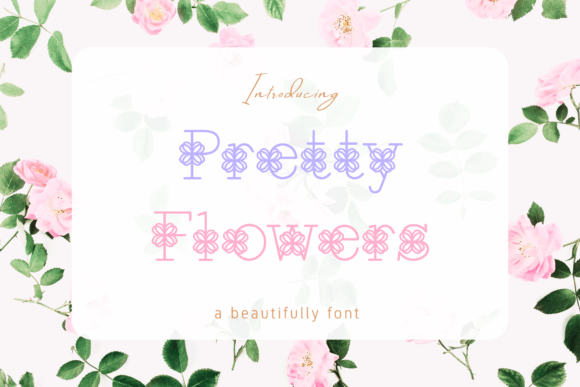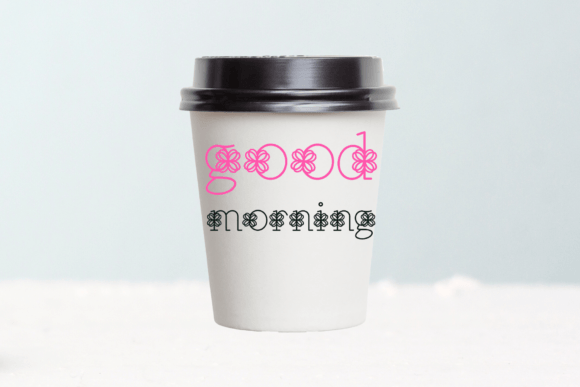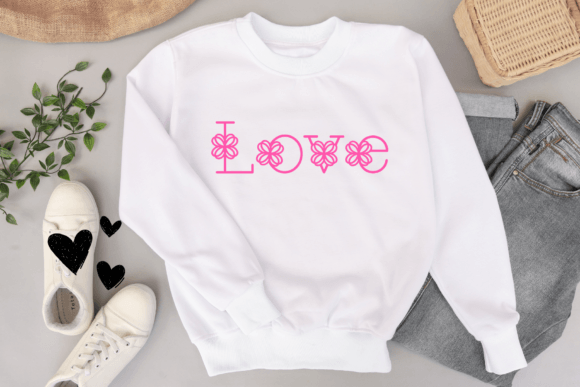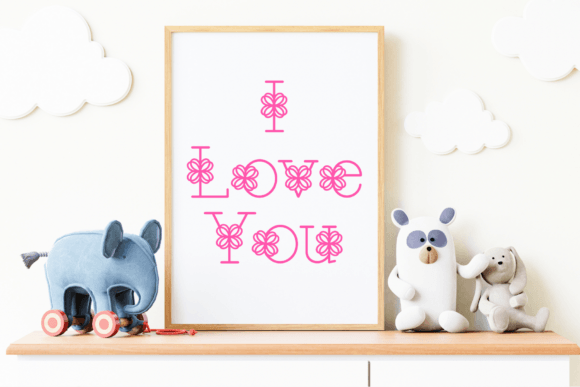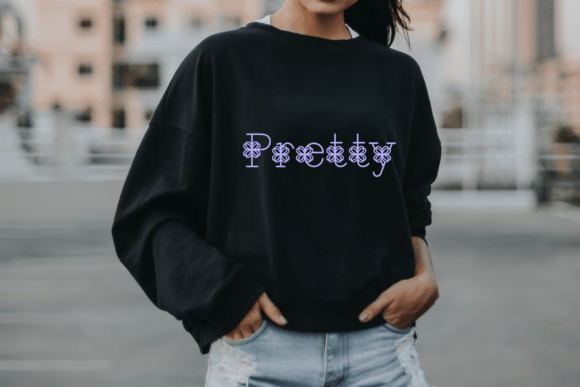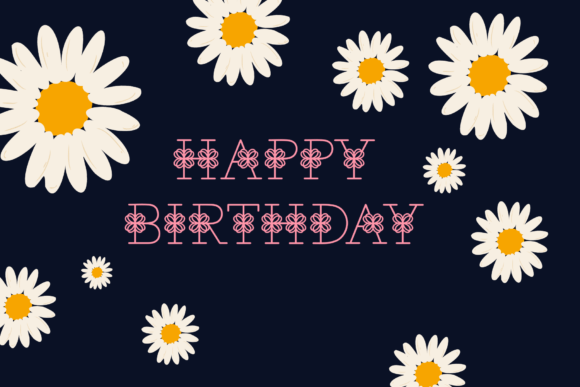
Introduction to Pretty Flowers Font
As I sat at my desk, surrounded by scattered papers and paint-splattered canvases, I stumbled upon the perfect addition to my latest creative project: the Pretty Flowers Font. With its delicate petals and whimsical charm, this font instantly brought my design to life, transporting me to a sunny meadow on a warm spring day.
For designers, finding the right font can be a game-changer. It’s not just about aesthetics; a high-quality font can elevate an entire design, making it stand out from the crowd. And that’s exactly what the Pretty Flowers Font does – it adds a touch of elegance and sophistication to any creative project, whether you’re working on a children’s game, a spring-themed craft, or a romantic wedding invitation.
Key Features of Pretty Flowers Font
- High-resolution design with a transparent background, ideal for creative projects requiring a delicate touch.
- Beautiful, intricate floral designs perfect for adding a touch of elegance to wedding invitations, greeting cards, and other stationery.
- Unique characteristics include ornate details, delicate petals, and a vintage aesthetic, setting it apart from other fonts.
- Perfect for designers looking for a high-quality design resource to elevate their creative projects.
Honest Review: Pretty Flowers Font
I recently stumbled upon the Pretty Flowers Font while searching for design resources to enhance a creative project. Initially, I was drawn in by its beautiful and intricate design, which made me excited to see how it would perform.
- High-quality design: The Pretty Flowers Font features delicate and detailed illustrations of flowers, which makes it perfect for adding a touch of elegance to any project.
- Transparent background: The transparent background allows for easy editing and customization, which is a huge plus for designers who value flexibility.
⚠️ While the Pretty Flowers Font is beautiful, it does have some limitations. The font is quite large in file size, which can slow down loading times. Additionally, the design may not be suitable for very small text sizes.
Overall, I’m impressed with the Pretty Flowers Font. It’s a great design resource for designers who want to add a touch of whimsy and elegance to their projects. With its high-quality design and transparent background, it’s a great choice for creative projects. While it has some limitations, it’s still a solid addition to any designer’s toolkit.
The Pretty Flowers Font is perfect for any design project that requires a touch of elegance and sophistication. Use it for wedding invitations, birthday cards, or any other occasion that calls for a beautiful and delicate design. The font is also great for creating high-quality graphics for social media, websites, or any other online platform.